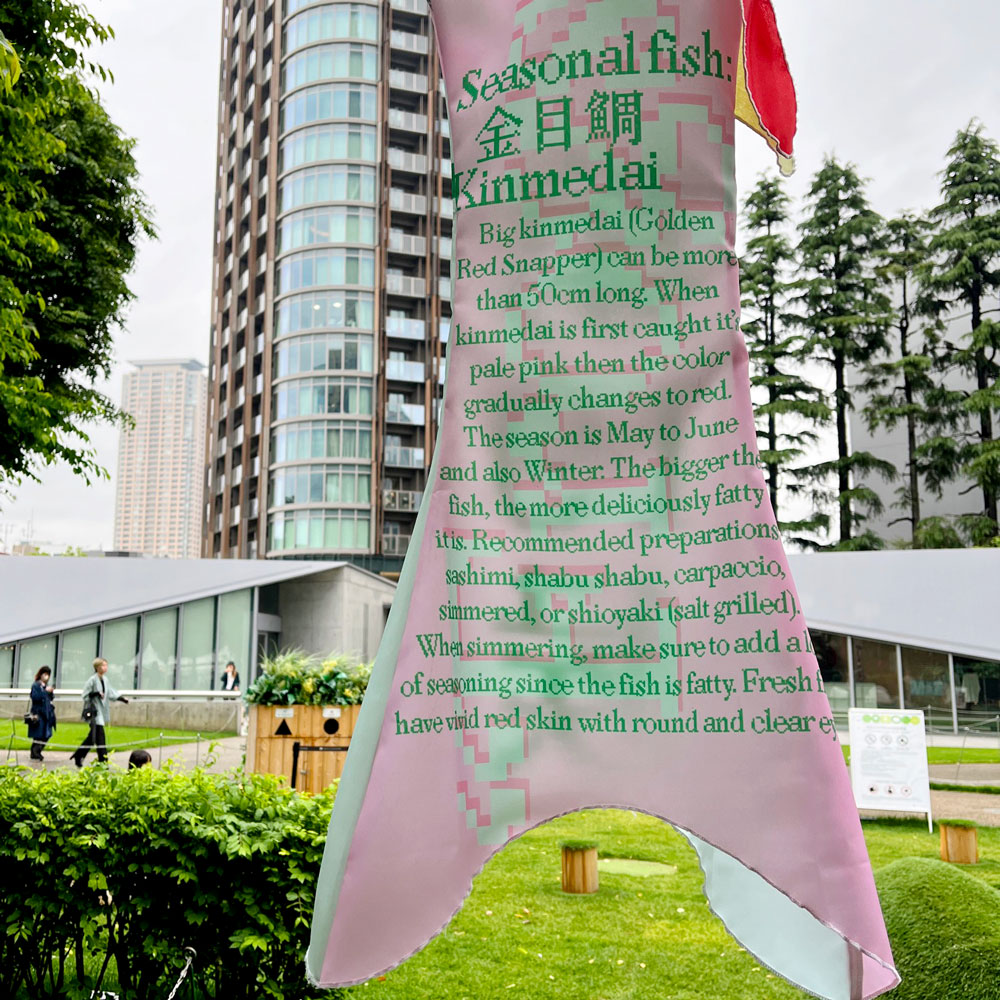
Tokyo Midtown Koinobori
Tokyo Midtown Koinobori by CJ Type using Louvette Pixel Typeface
I was invited to design a “koinobori” (carp streamer) for Children’s Day, to be displayed in Tokyo Midtown in front of 21_21 Design Sight, one of my favorite museums in Tokyo. This koinobori uses the typeface Louvette Pixel, which is the first release from CJ Type to include Japanese scripts Hiragana, Katakana, and (very limited) Kanji, as well as emoji. The design is centered around specificity of time and place, particularly Japan’s 19th microseason in early May: “Frogs Start Singing”, its seasonal flower: wisteria, seasonal fish: kinmedai, seasonal vegetable: carrot, and seasonal event: Children’s Day.
Tokyo Midtown Koinobori by CJ Type using Louvette Pixel Typeface detail
I’m thankful I could see this in person, and ensure that the typography functioned as intended. The large text side is designed to be readable from far away, and the smaller text side works as a texture from far away but encourages viewers to come up close to read the details. From close up, the top text reads clearly even though it’s hung high up above, which is something I was concerned about. Overall, I’m very happy with how this turned out, and a huge thank you to Aly Ishikuni of Mori Hawaiʻi for inviting me to participate.
Tokyo Midtown Koinobori by CJ Type using Louvette Pixel Typeface looking up
Tokyo Midtown Koinobori by CJ Type using Louvette Pixel Typeface along pathway